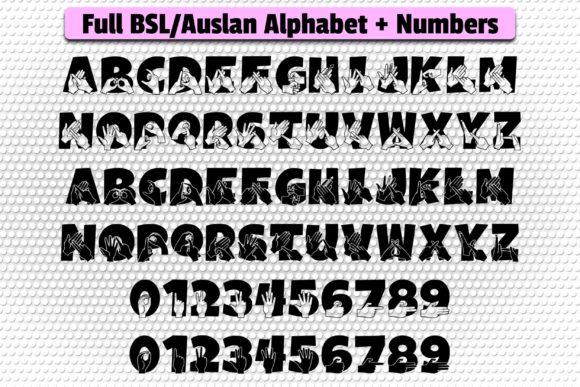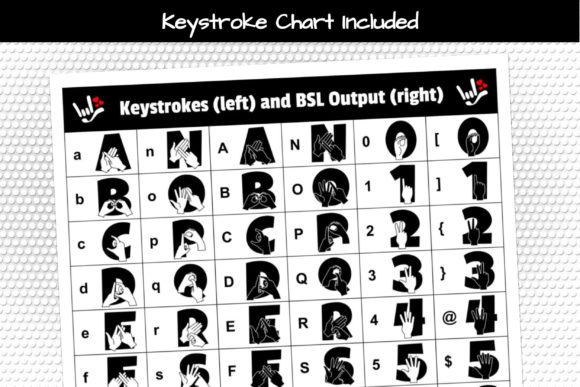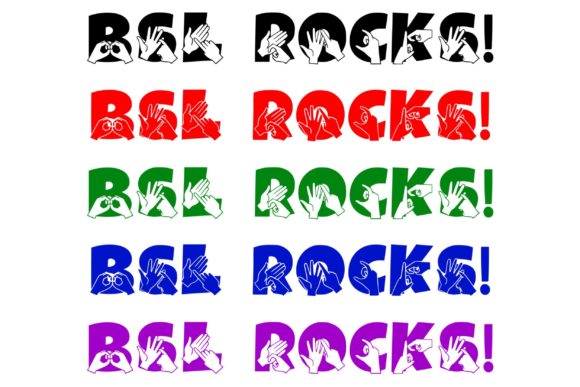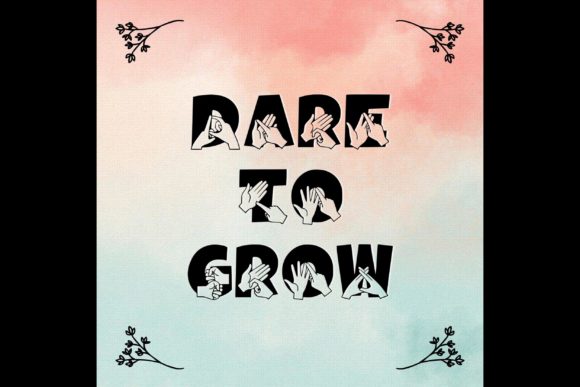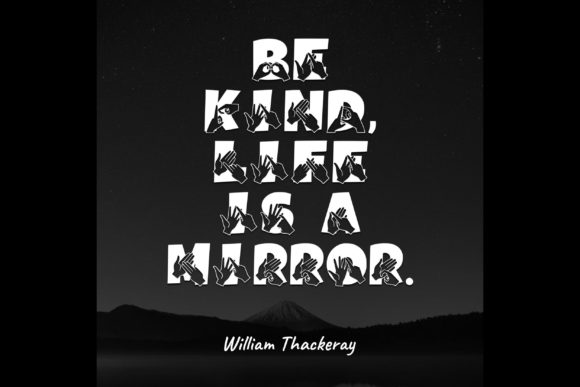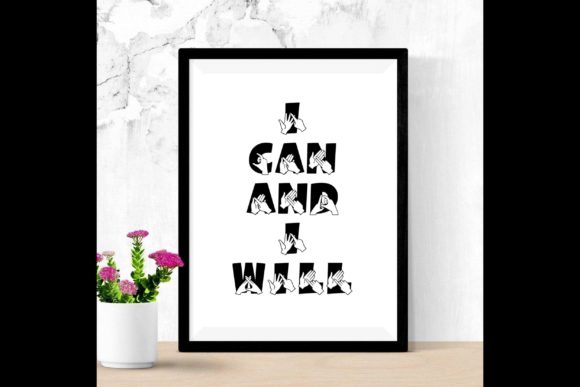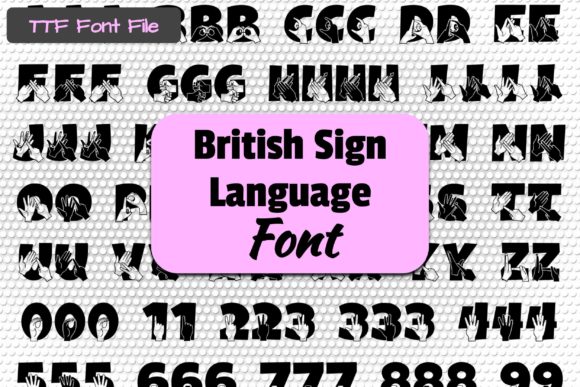
The Perfect Sign: Discovering Able Lingo BSL 4 Font
I’ll never forget the time I was working on a project for a client who specialized in British Sign Language (BSL) interpretation. They needed a font that could capture the essence of BSL, and I was determined to find it. After hours of searching, I stumbled upon Able Lingo BSL 4, and it was love at first sight! 💕 This decorative font has been a game-changer for my designs, and I’m excited to share its awesomeness with you.
- ✨ Unique and decorative: Able Lingo BSL 4 is unlike any other font I’ve seen. Its quirky design makes it perfect for adding a touch of personality to any project.
- ✅ Highly versatile: Whether you’re working on a logo, a poster, or a social media graphic, this font fits right in.
- 💬 Inspired by BSL: The font’s connection to British Sign Language makes it a great choice for projects related to accessibility, inclusivity, or social causes.
While Able Lingo BSL 4 is an amazing font, it’s not without its quirks. 🤔 For example:
- ⚠️ Limited use in body text: Due to its decorative nature, this font might not be the best choice for long blocks of text.
- ⚠️ Some characters may require manual adjustments: As with any font, you might need to tweak certain characters to get the perfect fit.
The Designer Inspiration Behind Able Lingo BSL 4
The creator of Able Lingo BSL 4 was inspired by the beauty and expressiveness of British Sign Language. They aimed to capture the unique characteristics of BSL in a decorative font that would be both functional and visually appealing. The result is a font that’s not only a tribute to BSL but also a versatile tool for designers.
Q: Is Able Lingo BSL 4 suitable for body text?
A: While it’s possible to use Able Lingo BSL 4 for body text, it’s not the most recommended use. Its decorative nature makes it better suited for headlines, titles, or short paragraphs.
Q: Does Able Lingo BSL 4 support OpenType features?
A: Yes, Able Lingo BSL 4 supports OpenType features, including stylistic alternates and glyphs. You can access these features in compatible design software like Adobe Creative Cloud apps.